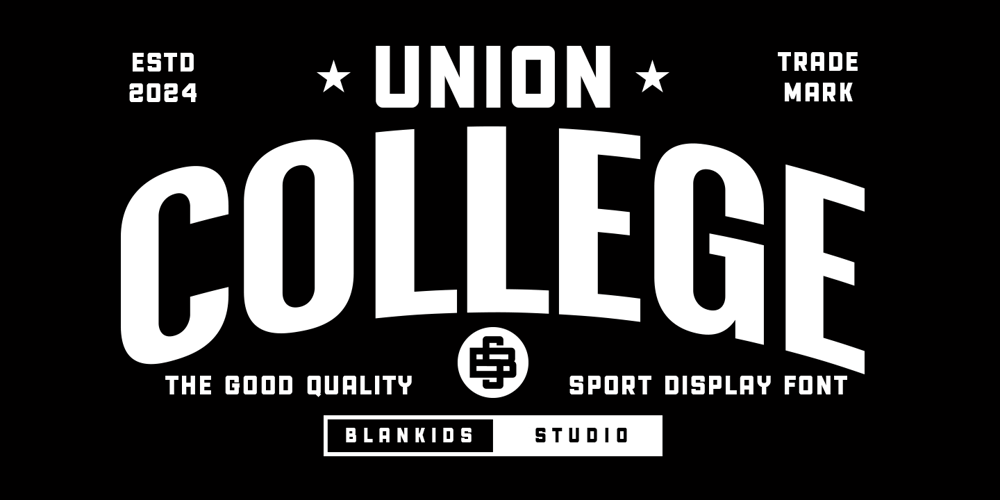
Union College 2
Union College 2 font
Union College 2 Font Family was designed by Bangkit Tri Setiadi and published by Blankids. Union College 2 contains 2 styles and family package options. Hello, awesome people! This time, we have a new font called Union College, a sporty display font by Blankids Studio.Union College, a sporty display font, is made for any professional project branding, such as logotype, watermarks, poster, branding, promotions, product packaging, etc. Every letter has a sporty college and varsity style design. This font comes in 2 font combination.Union College font includes a full set of sporty uppercase and lowercase letters, numerals and punctuation. This font has a sporty style. See the previews above to get some inspiration on how to use them. Happy designing!The font support has an OpenType feature that can be opened by various graphic software programs, such as Canva, Adobe Illustrator, Adobe Photoshop, Adobe InDesign, and Corel Draw.Support Language:Afrikaans, Albanian, Asu, Basque, Bemba, Bena, Breton, Catalan, Chiga, Cornish, Danish, Dutch, English, Faroese, Filipino, Friulian, Galician, German, Gusii, Indonesian, Irish, Italian, Kabuverdianu, Kalenjin, Kinyarwanda, Luo, Luxembourgish, Luyia, Machame, Makhuwa-Meetto, Makonde, Malagasy, Manx, Morisyen, North Ndebele, Norwegian Bokmål, Norwegian Nynorsk, Nyankole, Oromo, Portuguese, Quechua, Romansh, Rombo, Rundi, Rwa, Samburu, Sango, Sangu, Scottish Gaelic, Sena, Shambala, Shona, Soga, Somali, Spanish, Swahili, Swedish, Swiss German, Taita, Teso, Uzbek (Latin), Vunjo, ZuluWe really hope you enjoy it. Thank you for downloading our premium fonts. For further details, please feel free to leave us your messages.